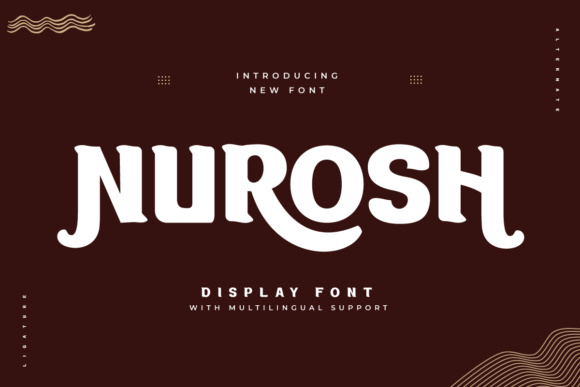
Nurosh Font: The Ultimate Typographic Solution for Attention-Grabbing Designs
In the realm of typography, a font can make or break the visual appeal of a design. With the numerous options available, it can be challenging to find a typeface that stands out from the crowd. However, if you’re looking for a font that can instantly grab the attention of your audience, look no further than Nurosh. This captivating and versatile typeface is designed to make a lasting impression, making it the perfect choice for those seeking a distinctive and attention-grabbing typography solution.
What is Nurosh Font?
Nurosh is a unique and eye-catching font designed to help you create stunning visual content. Its distinctive design makes it an excellent choice for a wide range of applications, from branding and advertising to packaging and digital media. Whether you’re a graphic designer, a marketer, or a business owner, Nurosh can help you elevate your brand’s visual identity and make it more memorable.
Key Features of Nurosh Font
- Unique Design: Nurosh boasts a one-of-a-kind design that sets it apart from other fonts. Its distinctive style ensures that your content will stand out and grab the attention of your audience.
- Versatility: Nurosh is an incredibly versatile font that can be used for a wide range of applications. Whether you’re designing a logo, creating a brochure, or developing a website, Nurosh can help you achieve your design goals.
- Attention-Grabbing: As its name suggests, Nurosh is designed to grab attention. Its bold and eye-catching design ensures that your message will be noticed, making it an excellent choice for advertising and promotional materials.
- Ease of Use: Despite its unique design, Nurosh is incredibly easy to use. The font is compatible with a wide range of design software, making it simple to incorporate into your existing workflow.
Applications of Nurosh Font
Nurosh is an incredibly versatile font that can be used for a wide range of applications. Some of the most popular uses for Nurosh include:
- Branding: Nurosh can help you create a unique and memorable brand identity. Its distinctive design ensures that your brand will stand out and be noticed.
- Advertising: Whether you’re creating a print ad, a digital ad, or a social media campaign, Nurosh can help you grab the attention of your audience.
- Packaging: Nurosh can add a touch of elegance and sophistication to your product packaging. Its unique design ensures that your products will stand out on store shelves.
- Digital Media: Nurosh can be used to create stunning digital content, from website headers to social media graphics.
Benefits of Using Nurosh Font
There are numerous benefits to using Nurosh font in your designs. Some of the most significant advantages include:
- Increased Visibility: Nurosh can help you increase the visibility of your brand. Its attention-grabbing design ensures that your message will be noticed.
- Improved Brand Recognition: By using Nurosh, you can create a unique and memorable brand identity that will help you stand out from the competition.
- Enhanced Creativity: Nurosh can help you unleash your creativity and take your designs to the next level. Its unique design ensures that you’ll never run out of inspiration.
- Easy to Use: Nurosh is incredibly easy to use, making it simple to incorporate into your existing workflow.
Tips for Using Nurosh Font Effectively
To get the most out of Nurosh, here are a few tips to keep in mind:
- Use it Sparingly: While Nurosh is an attention-grabbing font, it’s essential to use it sparingly. Overusing the font can make your designs look cluttered and overwhelming.
- Pair it with Other Fonts: Nurosh can be paired with other fonts to create a unique and visually appealing design. Experiment with different font combinations to find the perfect pairing.
- Experiment with Colors: Nurosh looks great in a variety of colors. Experiment with different colors to find the perfect shade to match your brand’s identity.
- Keep it Simple: While Nurosh is a bold and eye-catching font, it’s essential to keep your designs simple and easy to read. Avoid cluttering your designs with too much text or graphics.
In conclusion, Nurosh font is an excellent choice for anyone looking to create attention-grabbing designs. Its unique and eye-catching design makes it perfect for a wide range of applications, from branding and advertising to packaging and digital media. With its ease of use, versatility, and numerous benefits, Nurosh is sure to become a staple in any designer’s toolkit.